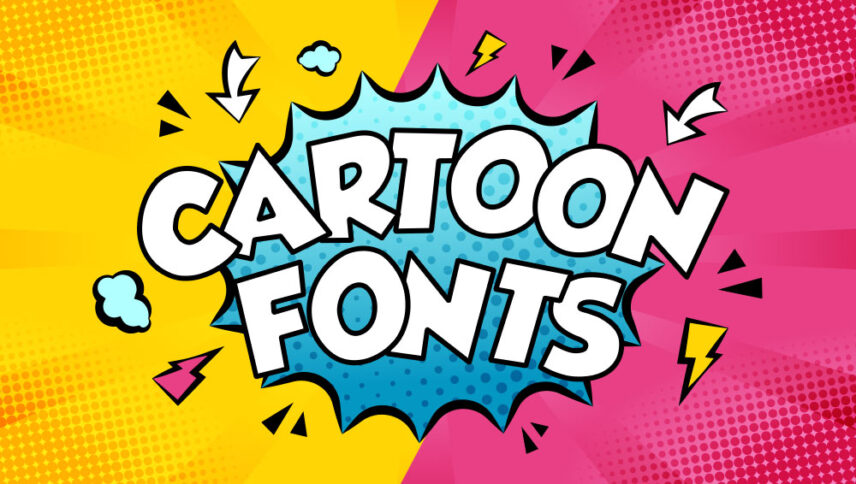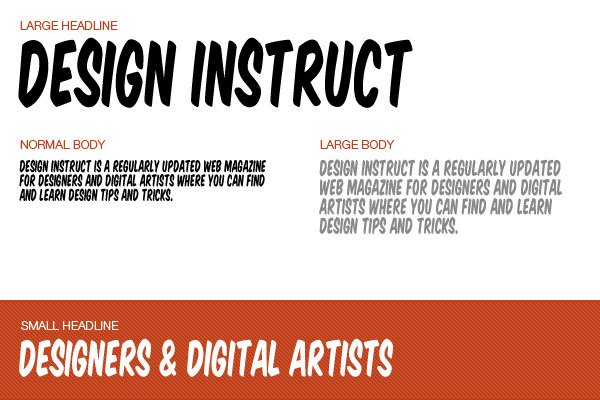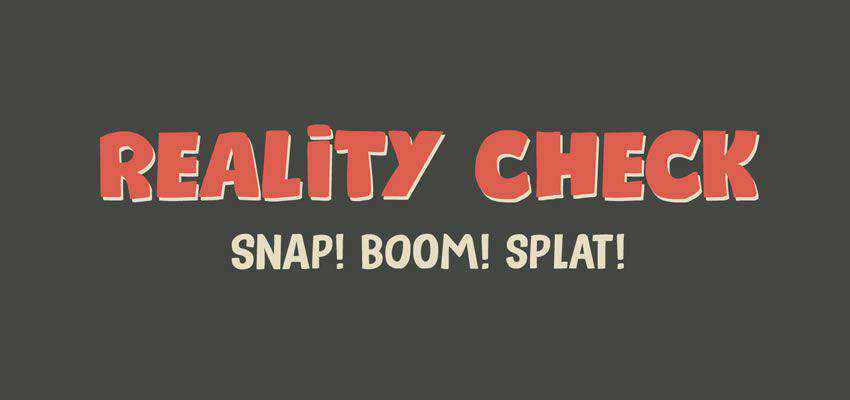
Free comic book fonts for photoshop. It has uppercase and lowercase letters and over 100 different characters and glyphs supporting almost all Latin languages. His work has been featured by Search Engine Land USA Today Fast Company and Inc. Black Night Terror Typeface free with subscription.
This tutorial was created with Photoshop CC. You will learn how to create this 3D effect by duplicating layers and by adding halftones to give it that comic feel. Komika Poster - Apostrophic Labs.
Comic Speeds Cartoon Screen Font free with subscription. Woodchuck is a free and modern sans-serif font that would work well in any comic book. Classic Comic font pairings About Description Rather than follow a particular comic book lettering model Classic Comics forms are constructed with the natural tilt and wider aperture of the slightly darker lettering found in older comics on either side of the Atlantic.
Since then thousands of free fonts can be found and downloaded online. It just takes longer to find them now. 10 Excellent Free Comic Book Fonts.